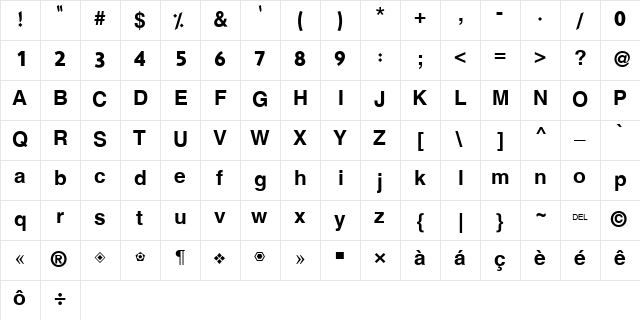
Hacen Casablanca Heavy Regular
| Foundry | Muhammad Hacen |
| Designer | Muhammad Hacen |
Design Context for Hacen Casablanca Heavy Typeface
Hacen Casablanca Heavy takes a measured approach to typography — its balanced proportions and neutral character make it a reliable workhorse for both digital and print work.